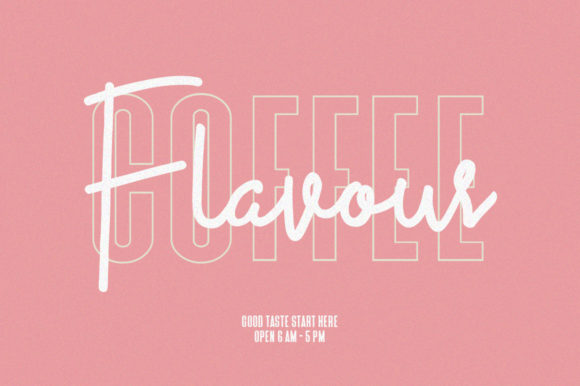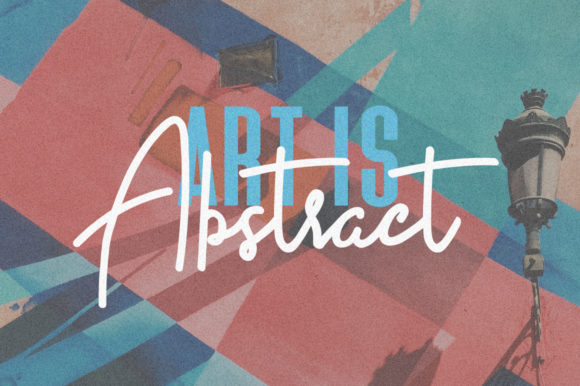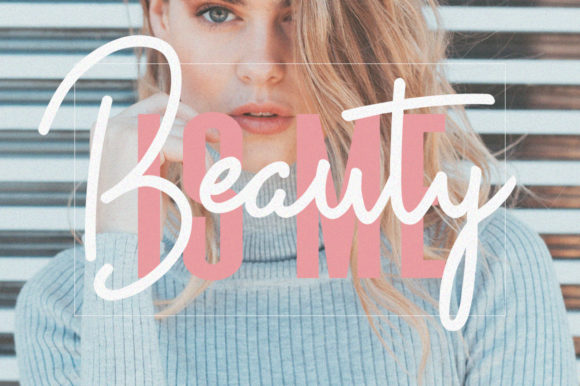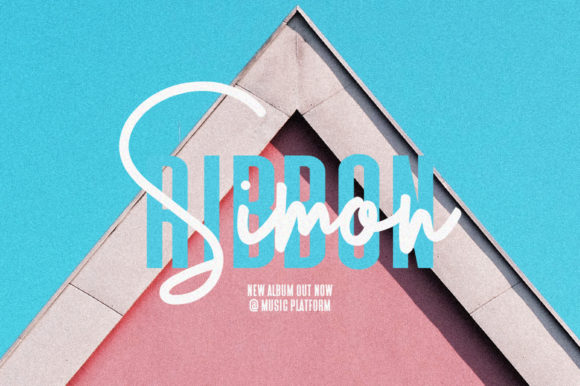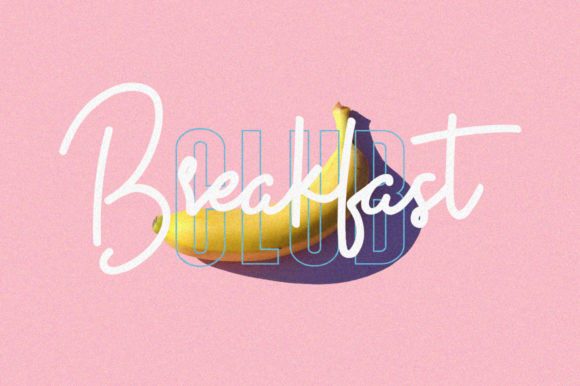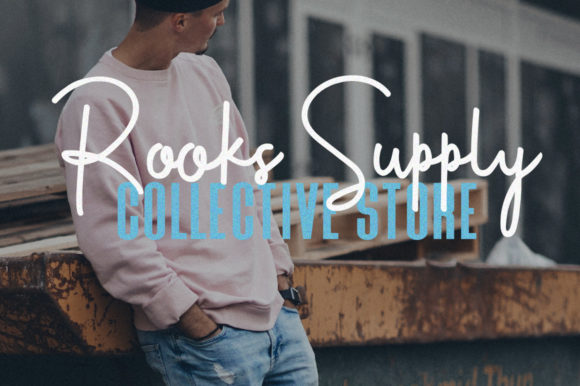
Introduction to Hunny Straw Font
Hunny Straw is a lovely duo font (sans serif and script).
Incredibly versatile, this font is the right match for a large set designs, elevating them to the highest levels Add it to your favorite creative ideas and notice how it makes them come alive.
Key Features of Hunny Straw Font
Why Choose Hunny Straw Font?
Hunny Straw Font offers exceptional quality and versatility, making it a valuable addition to your design toolkit. Whether you’re creating for personal projects or commercial use, Hunny Straw Font delivers professional results.